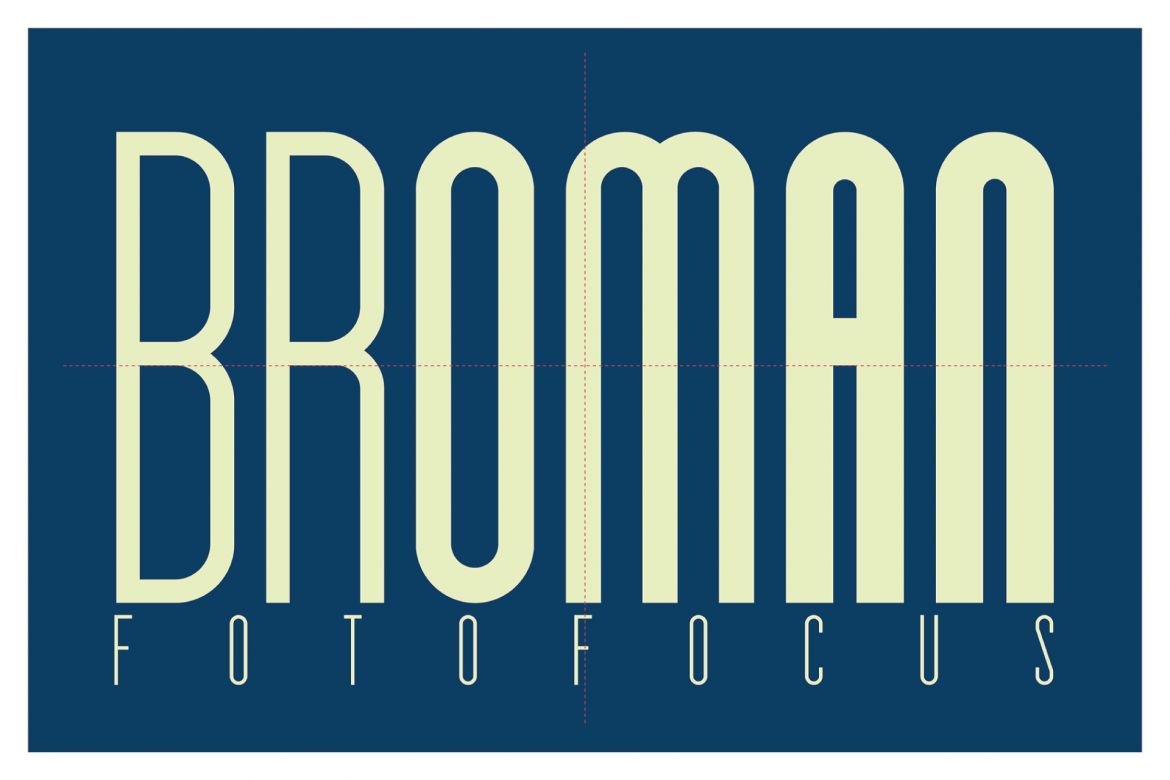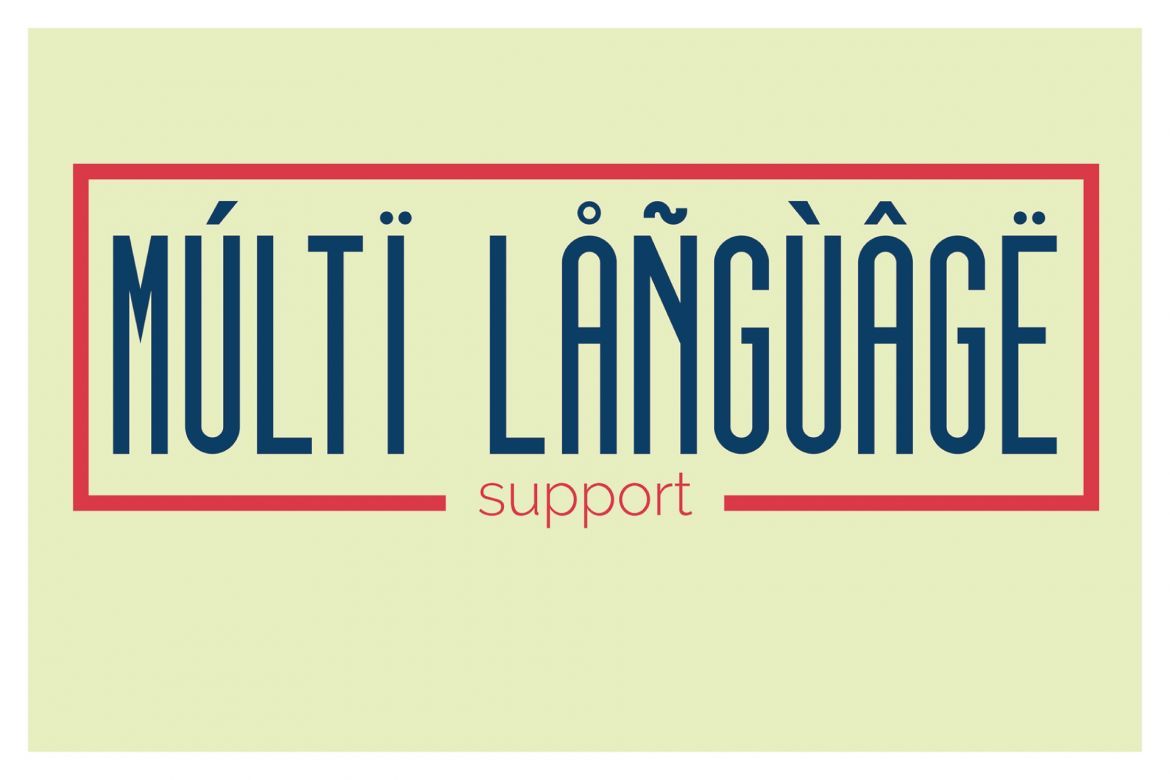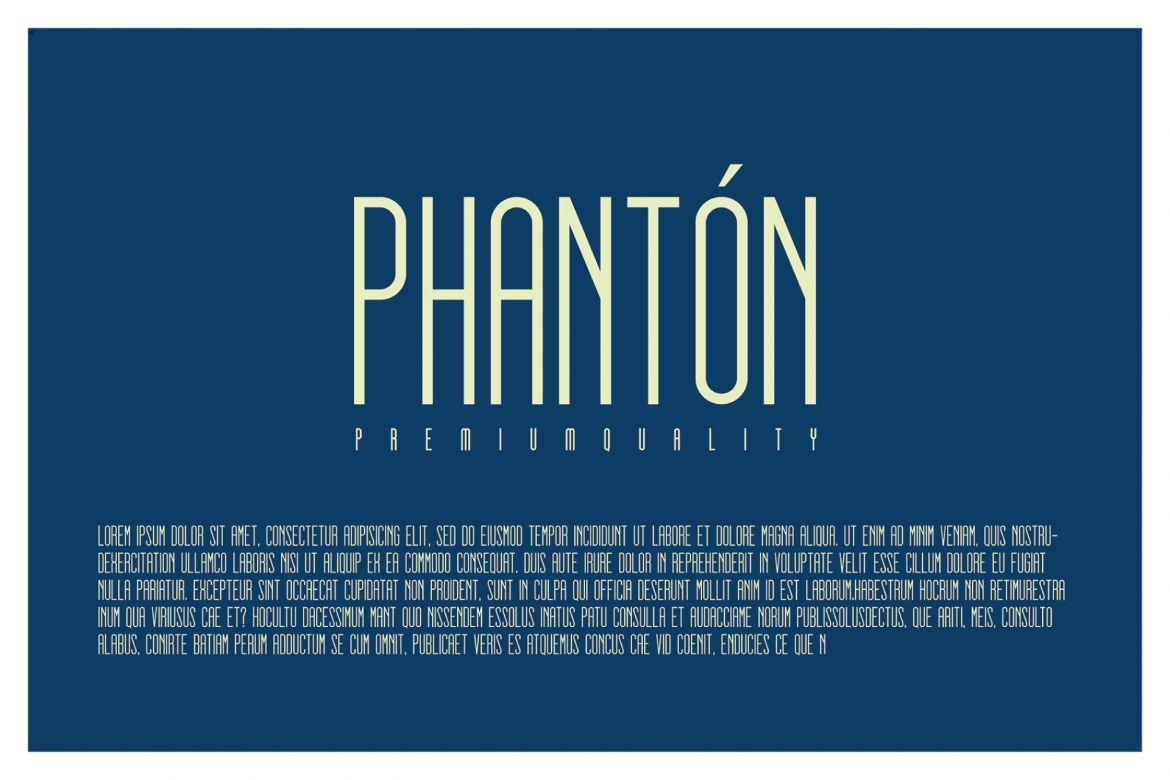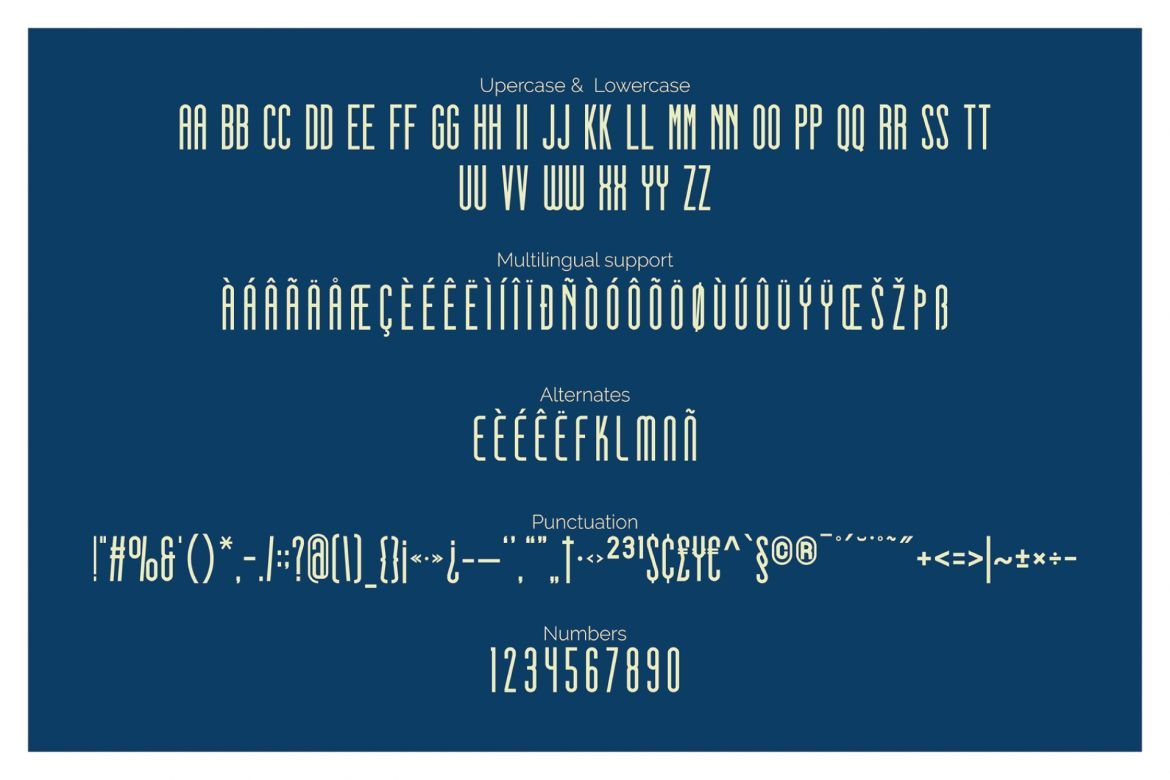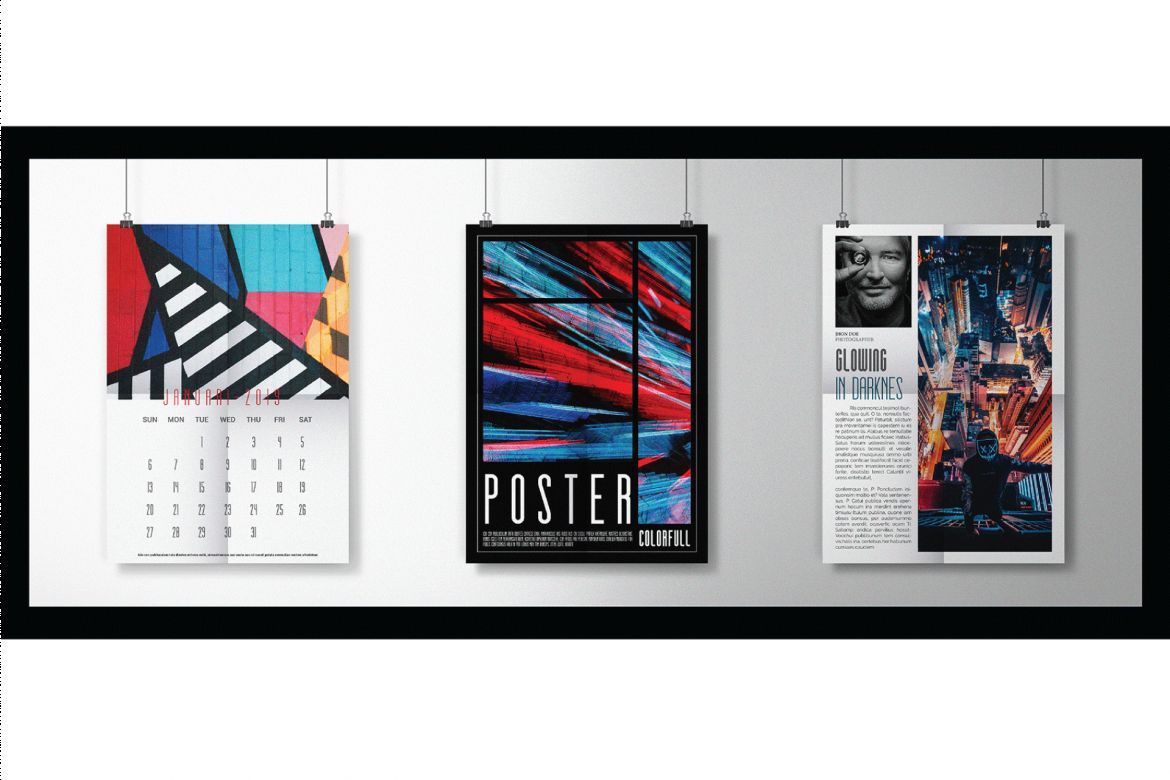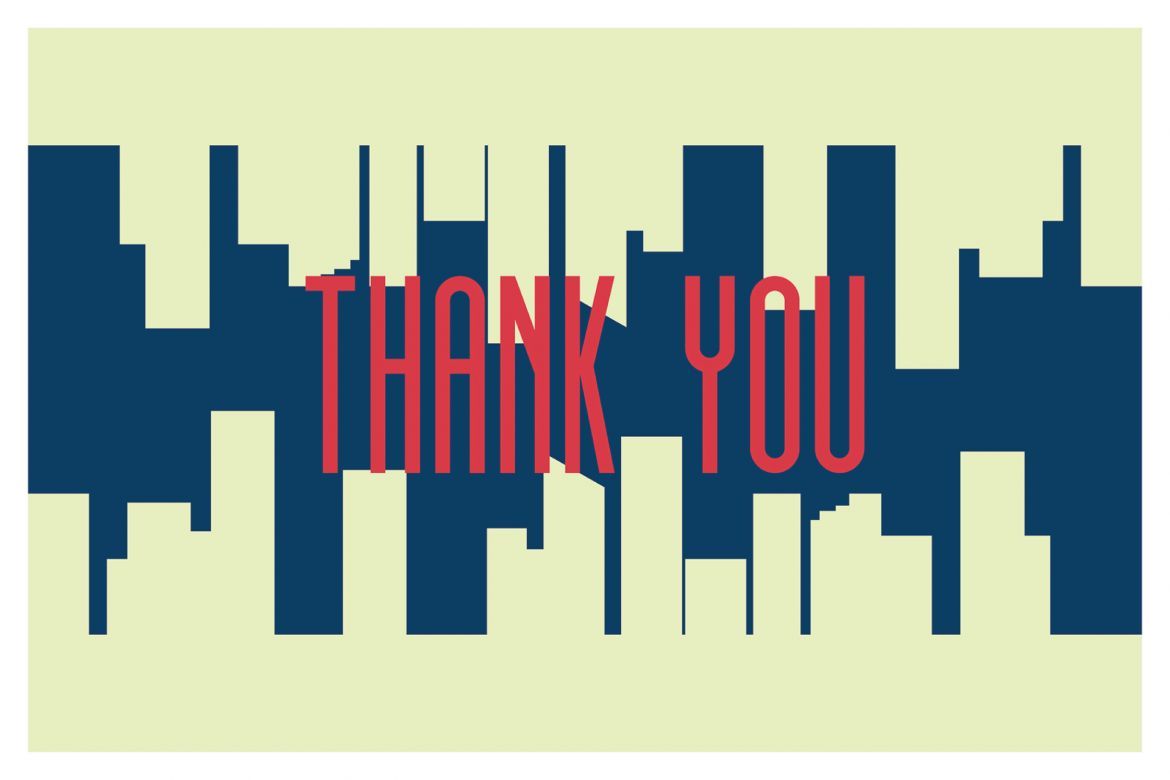
Gello Font Family
Looking simple doesn't mean unable to be mesmerizing. Less is more. This is the reason why we wanna offer you the Gello font. This font was specially designed with san serif type and characterized by its slimness and height. It gives the impression of being clean and extremely ellegant.
This font would be perfectly used as the headline, poster, title, other graphic design. The Gello has 3 variants namely: Thin, Regular and Bold.
• designed with san serif type and characterized by its slimness and height. it gives the impression of being clean and extremely ellegant the gello has 3 variants namely: thin, regular and bold.
• equipped with alternative letters that look sweet and classy are very good for your work such as, branding, packaging, posters, invitations, instastory and your advertising needs